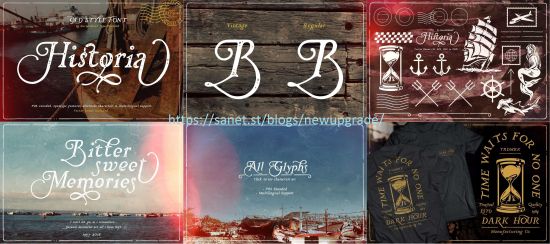
Introducing our latest old style font called Historia.
STORY BEHIND: Life is a journey and every journey have their own special moment that give a deep personal feeling, a memories to always remember and Historia font trying to captured it.
A HARMONIOUS SET: Came with full set of uppercase, lowercase, alternate uppercase, alternate lowercase, ligatures, discretionary ligatures, contextual alternate, subscript & superscript. Please see preview 5 to see the detail.